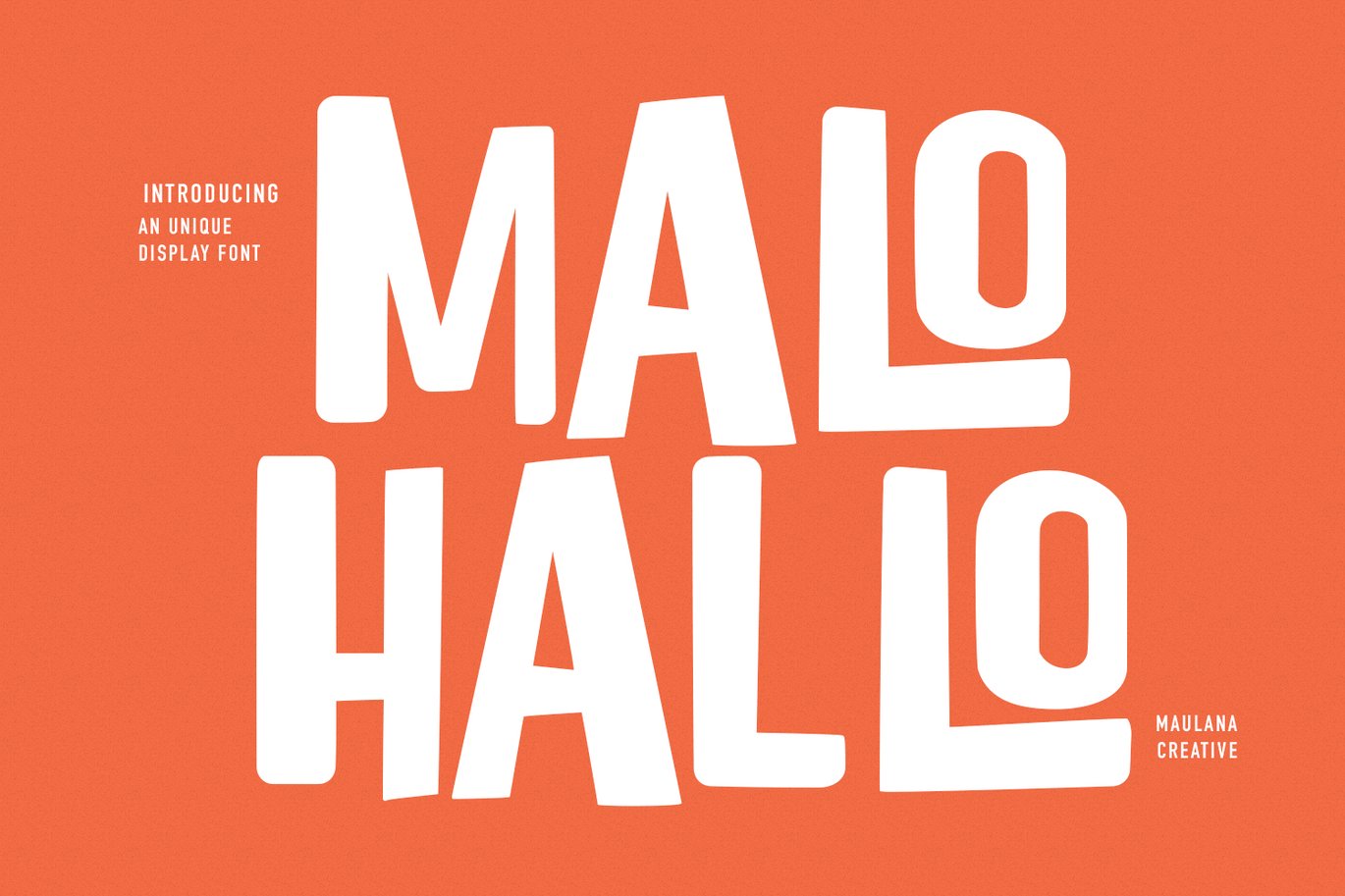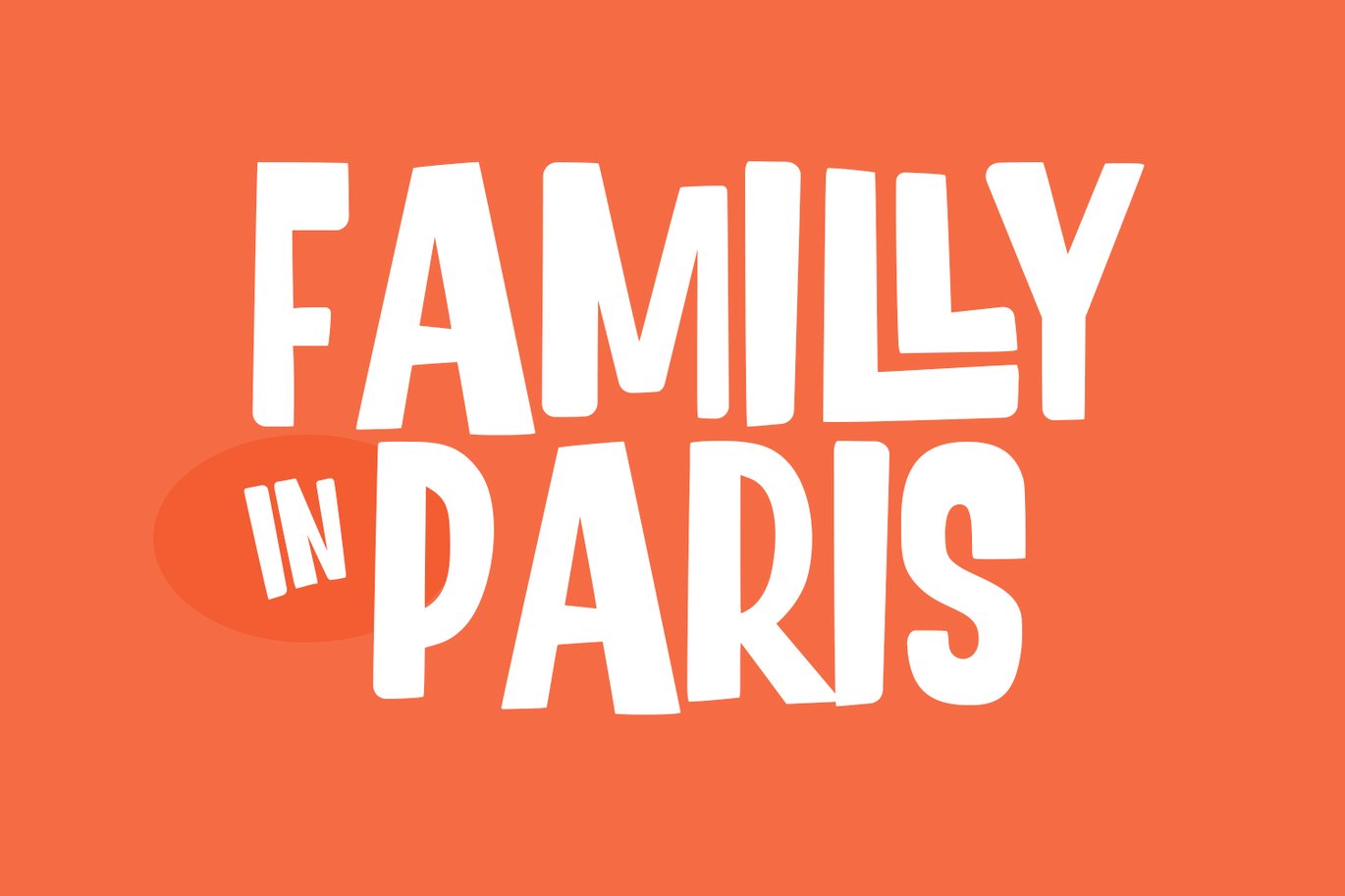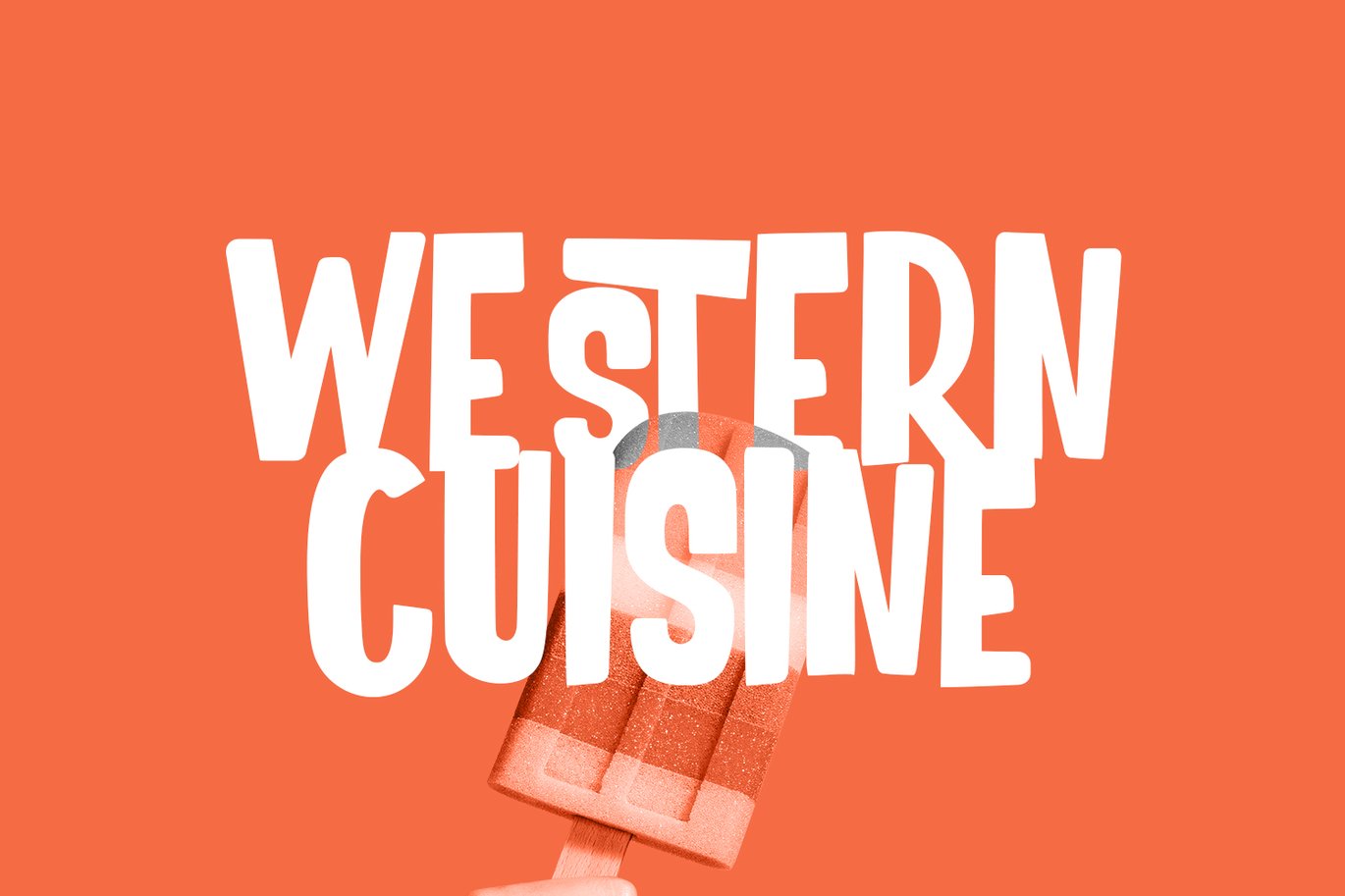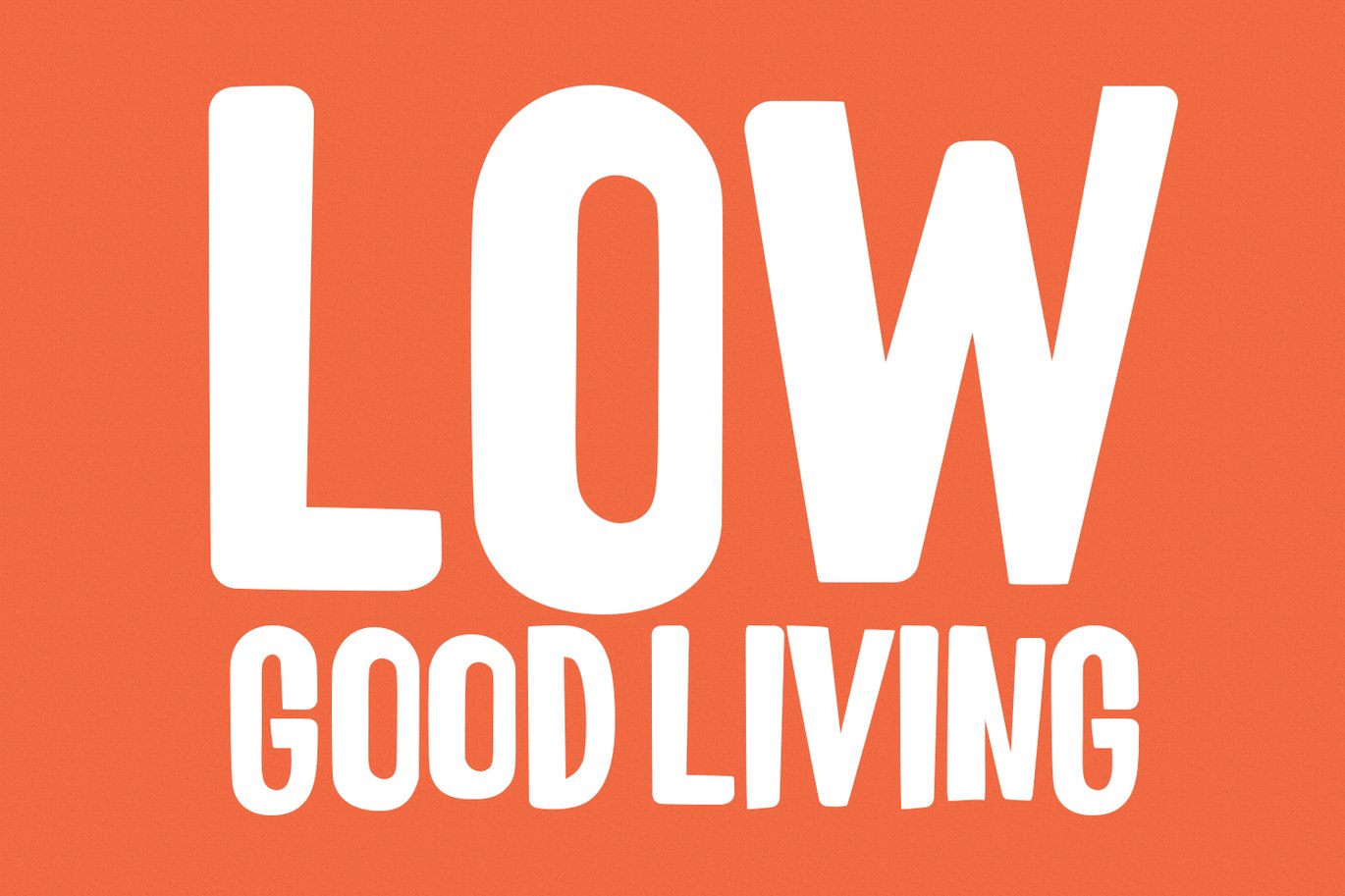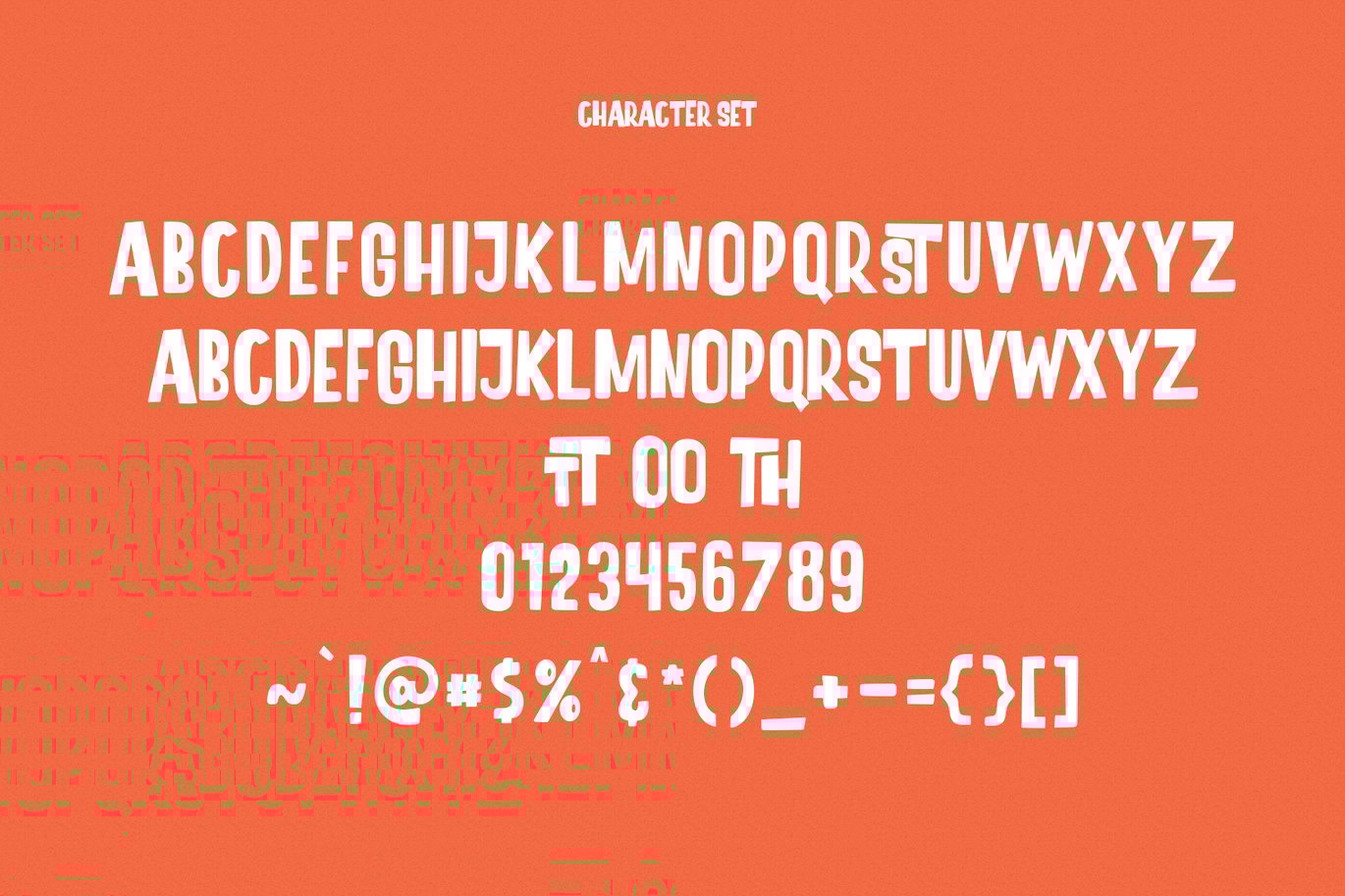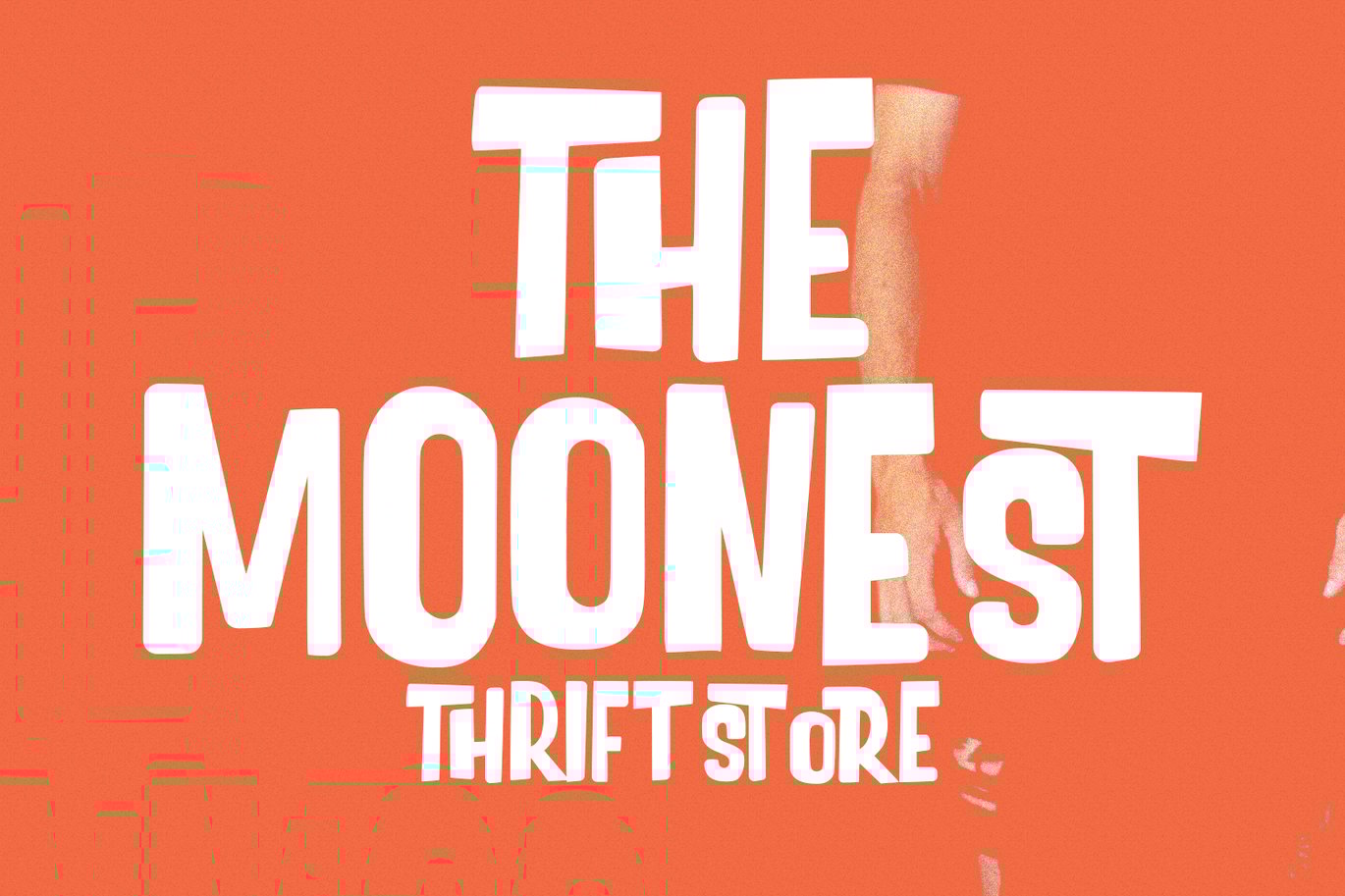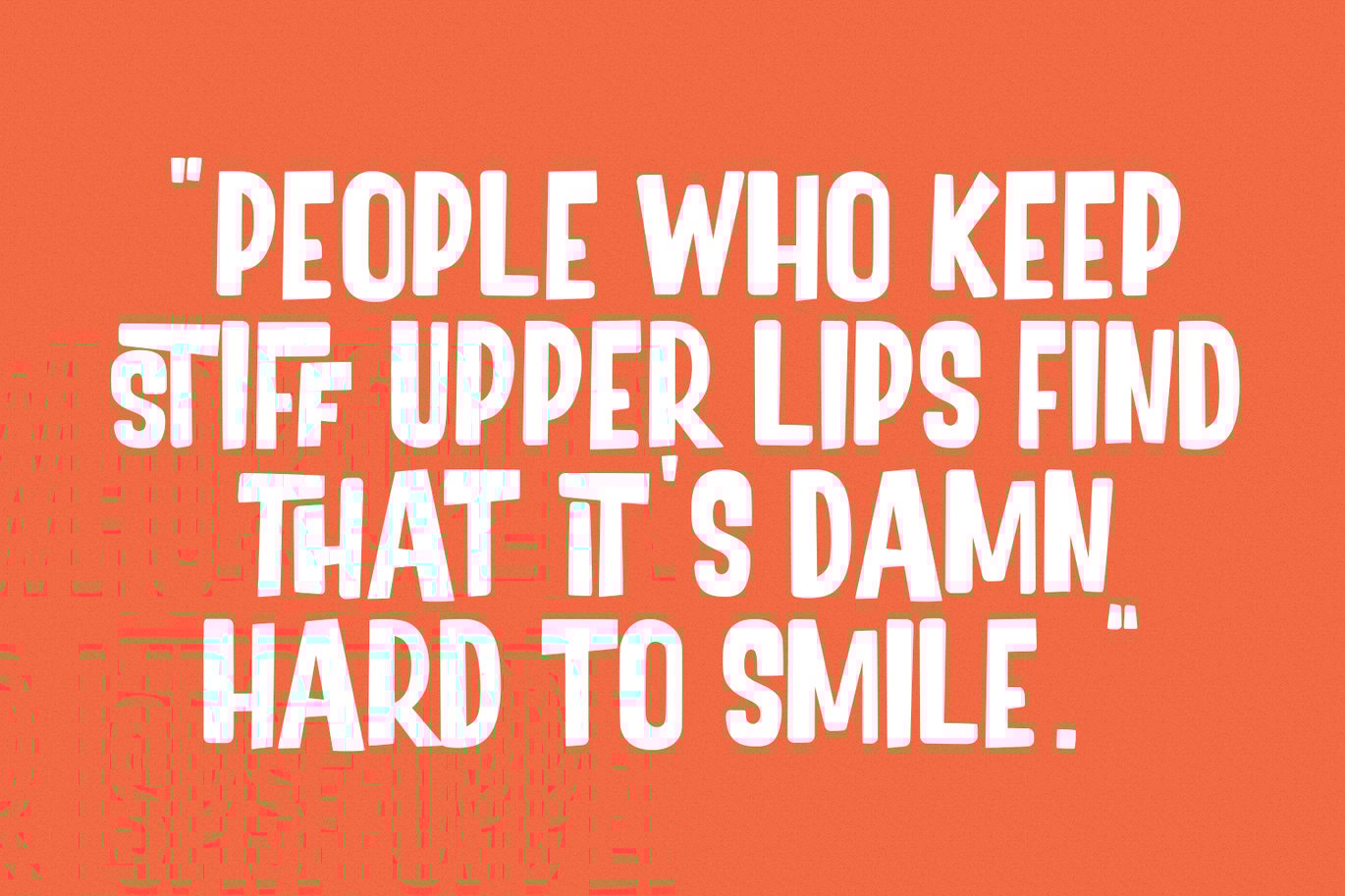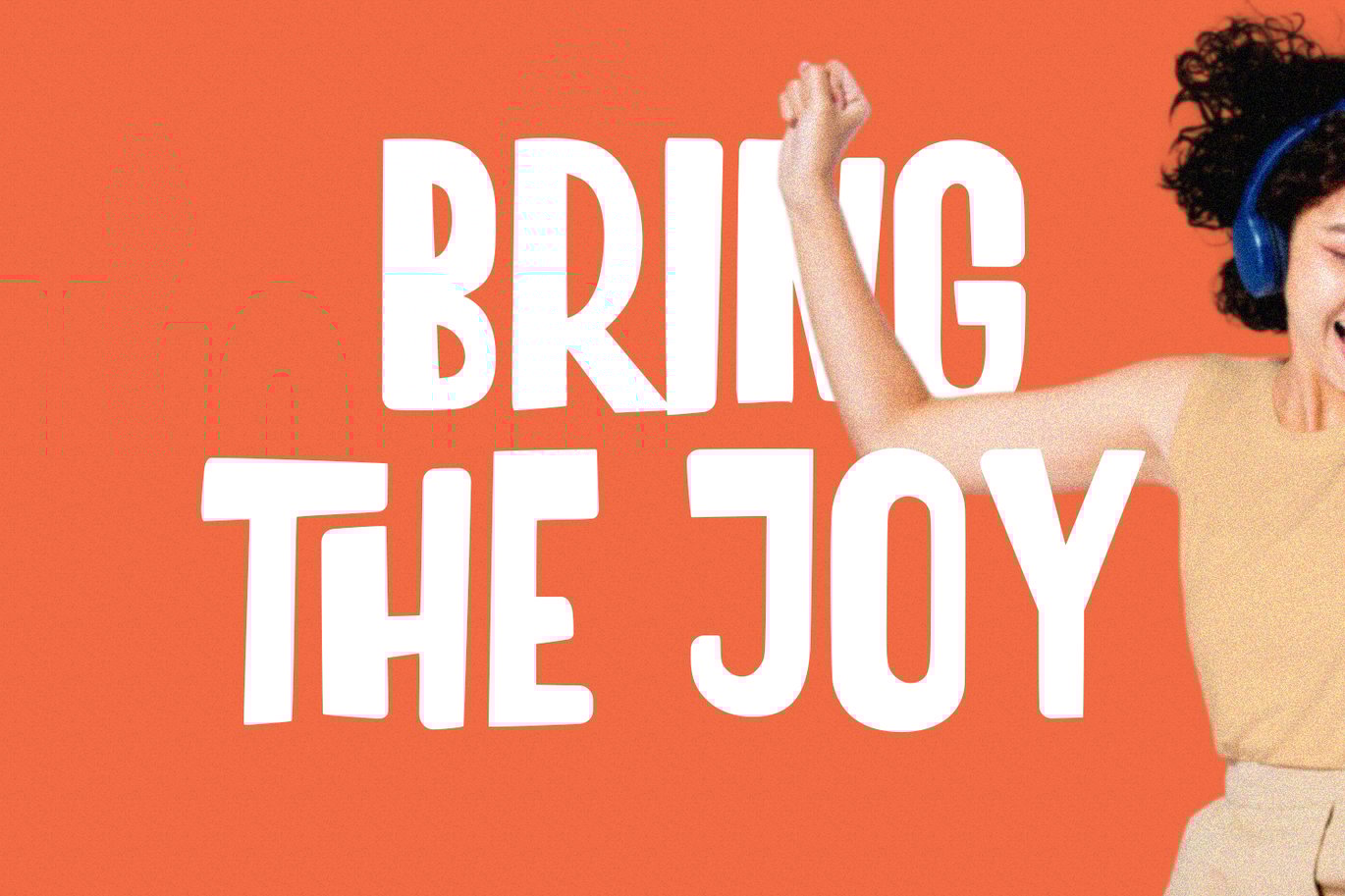
Malohallo Display Font
Malohallo is a Fun Display font. With Bold sharp and round edge combine stroke, fun character with a bit of ligatures and alternates. To give you an extra creative work. Malohallo font support multilingual more than 100+ language. This font is good for logo design, Social media, Movie Titles, Books Titles, a short text even a long text letter and good for your secondary text font with script or signature. Make a stunning work with Malohallo font.